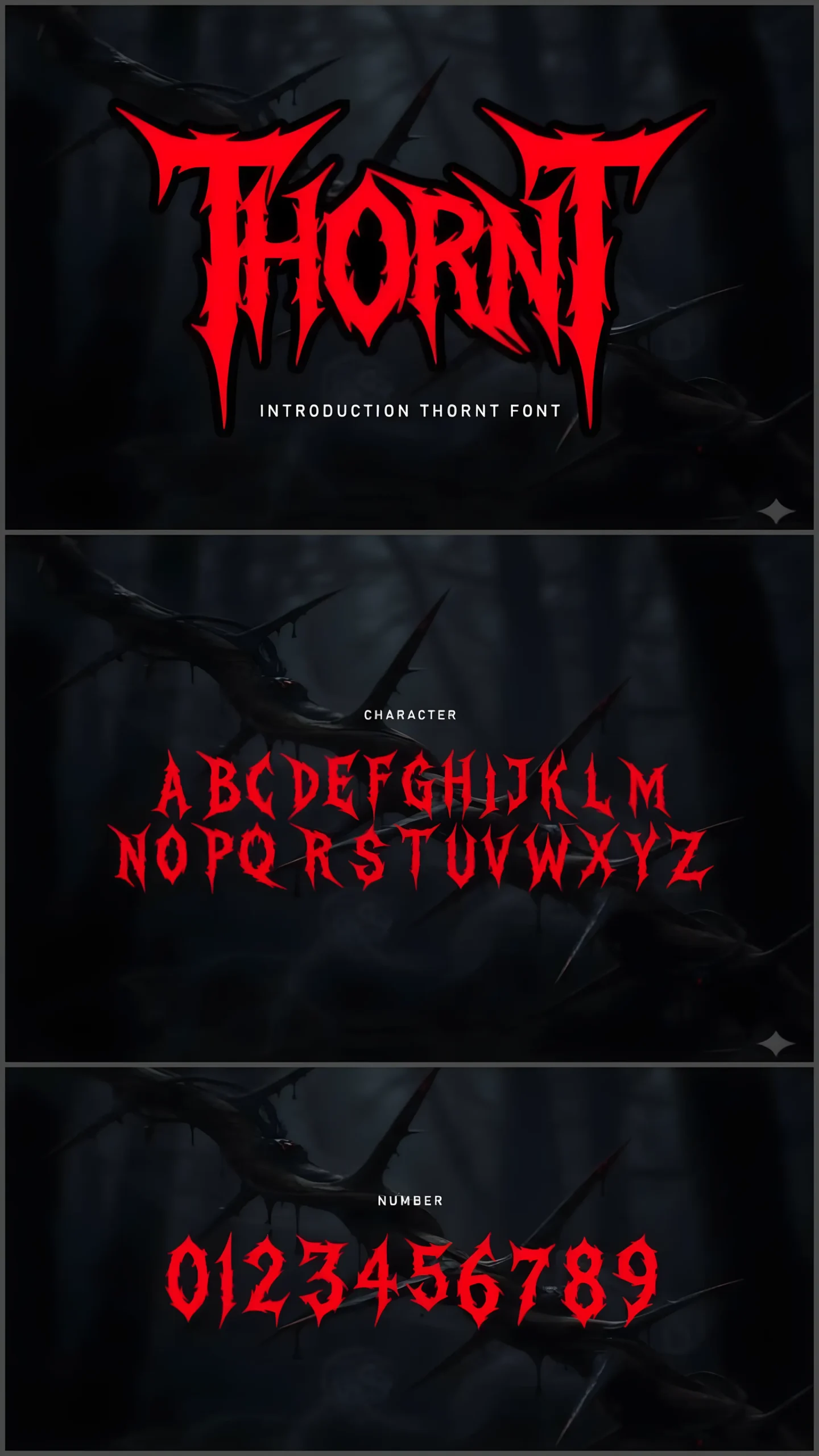
Some fonts are designed to decorate, others are built to intimidate, provoke, and dominate visually. Thornt Font clearly belongs to the second category. This is a bold gothic blackletter display typeface created to express intensity, rebellion, and dark elegance through sharp, thorn-like letterforms.
The font feels dangerous by design. Every character carries tension and aggression, making it ideal for projects that need to feel heavy, extreme, and visually uncompromising. Thornt does not try to be subtle — it exists to make a statement.
Visual Style and First Impression
Thornt Font delivers a powerful first impression. The letterforms are razor-sharp, high-contrast, and shaped like thorns, giving the typography a menacing, almost weaponized appearance. Angled edges and pointed terminals create a sense of movement and hostility, as if the letters themselves could cut through the surface.
The blackletter foundation is clearly visible, but it is pushed into a more modern and aggressive direction. Instead of traditional medieval elegance, Thornt focuses on brutality and dominance. The overall look feels dark, sharp, and highly dramatic.
Visually, the font often appears paired with a glowing red aesthetic, reinforcing themes of danger, darkness, and intensity.
A Gothic Blackletter Built for Impact
Thornt Font is a display blackletter typeface designed for maximum visual force. It includes:
- a full uppercase alphabet
- numbers
- punctuation
The structure is bold and deliberate, ensuring that each letter remains recognizable even with extreme stylistic choices. The high contrast between thick and thin strokes adds depth and drama, which helps the font stand out in dark or high-energy designs.
Rather than following traditional gothic rules strictly, Thornt modernizes blackletter typography with sharper geometry and more aggressive detailing.
Designed for Dark and Extreme Themes
Thornt Font is clearly created for projects that explore darker aesthetics. It works especially well in designs related to:
- metal and hardcore music
- horror and occult visuals
- dark fantasy
- gaming and cinematic titles
The font naturally communicates themes of rebellion, power, danger, and mystery. Even a single word set in Thornt Font can establish mood instantly.
Practical Design Applications
Metal Band Logos and Album Covers
One of the strongest use cases for Thornt Font is music branding. It fits perfectly in:
- metal band logos
- album covers
- tour posters
The aggressive thorn-shaped letters align well with heavy music genres and underground culture. The font feels loud, raw, and unapologetic.
Horror Posters and Film Titles
Thornt Font works extremely well in horror-related visuals. Movie titles, posters, and promotional artwork benefit from its sharp and unsettling appearance.
It is especially effective for:
- horror posters
- thriller or dark fantasy film titles
- suspense-themed graphics
The typography alone can create tension before any imagery is added.
Gaming Logos and Titles
In gaming design, typography often needs to communicate atmosphere instantly. Thornt Font excels in this role.
It fits naturally into:
- game logos
- title screens
- dark fantasy or horror game branding
The aggressive style reinforces intensity and immersion, especially for action-heavy or dark-themed games.
Streetwear, Tattoos, and Visual Art
Thornt Font also translates well into fashion and visual art. Its sharp structure and gothic influence make it suitable for:
- streetwear branding
- tattoo-inspired visuals
- edgy apparel designs
The font’s strong outlines and dramatic forms hold up well in printing and cutting applications.
Readability and Usage Notes
Thornt Font is not intended for long paragraphs or body text. It is a pure display font, best used in:
- titles
- logos
- short phrases
- featured words
Spacing is important. Giving the letters room allows the thorn details to remain clear and prevents the design from feeling crowded. Pairing Thornt with a clean, neutral supporting font helps balance layouts when additional text is needed.
Emotional Tone and Design Feel
The emotional tone of Thornt Font is dark, aggressive, and commanding. It communicates intensity and rebellion rather than elegance or friendliness.
This makes it ideal for designs that aim to feel:
It is not intended for readability-heavy layouts, but as a display font, it delivers raw power and atmosphere.
Thornt Font is a gothic blackletter typeface built around aggression and visual dominance. Its thorn-shaped letters, sharp contrasts, and dark personality make it a powerful tool for extreme and expressive design.
For creators looking to push typography into darker territory — whether in music, horror, gaming, or alternative branding — Thornt Font offers a bold and uncompromising solution. Used thoughtfully, it turns text into a weaponized visual statement.